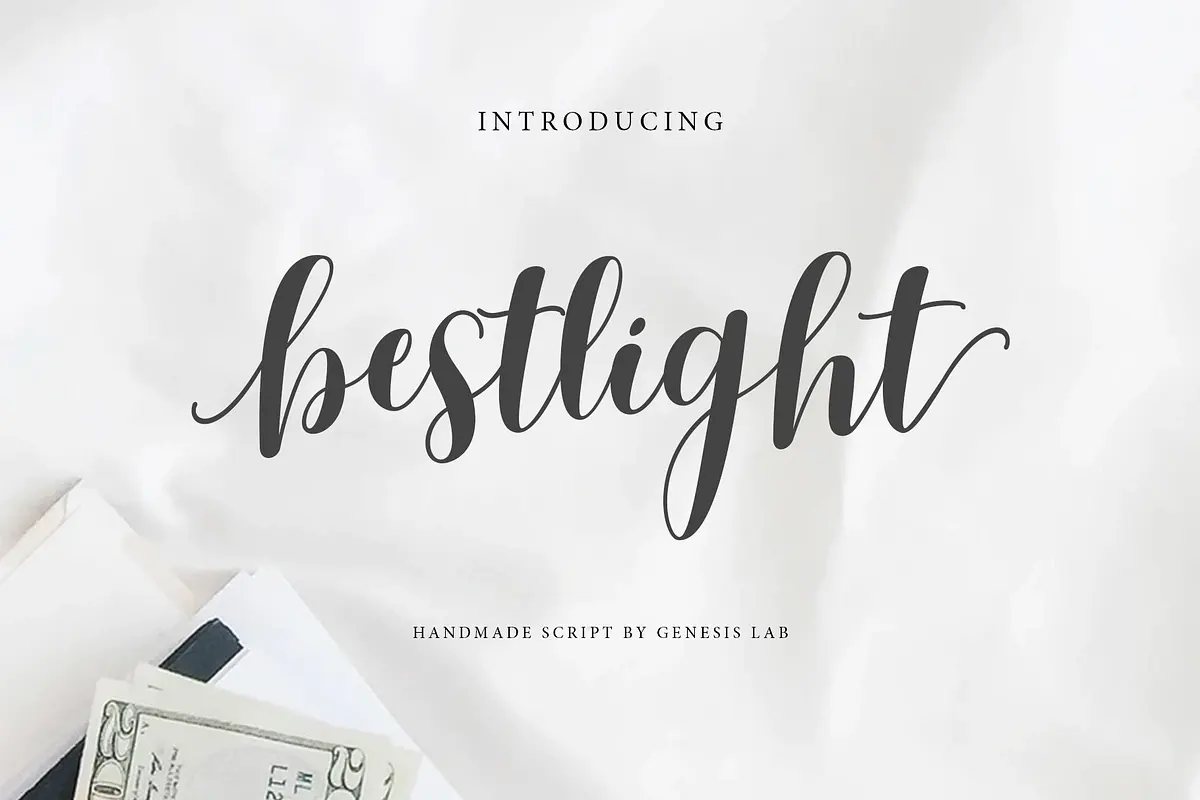
Add a touch of elegance and modern sophistication to your designs with Bestlight Font Free Download. This versatile, sleek typeface is perfect for branding, logos, editorial design, social media graphics, and more. Featuring clean lines and contemporary letterforms, it’s ideal for creating stylish, high-impact layouts.
Bestlight brings clarity and elegance to any design project, with its well-balanced proportions and professional look. It includes uppercase and lowercase letters, numerals, punctuation, and multilingual support, offering flexibility for both print and digital applications.